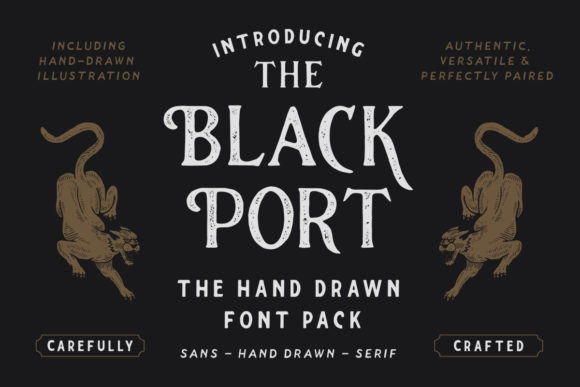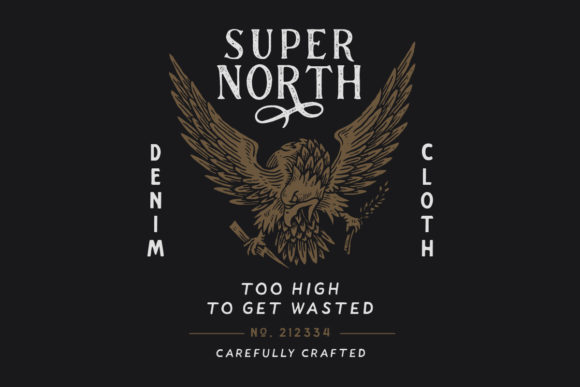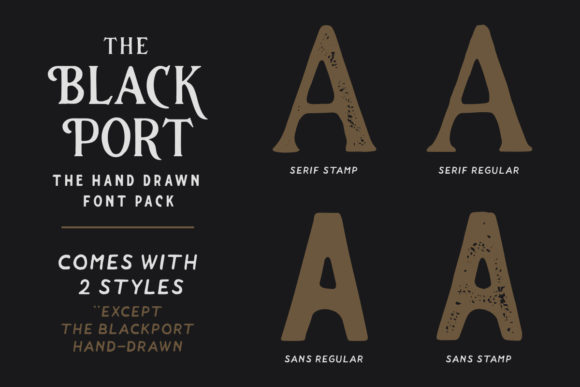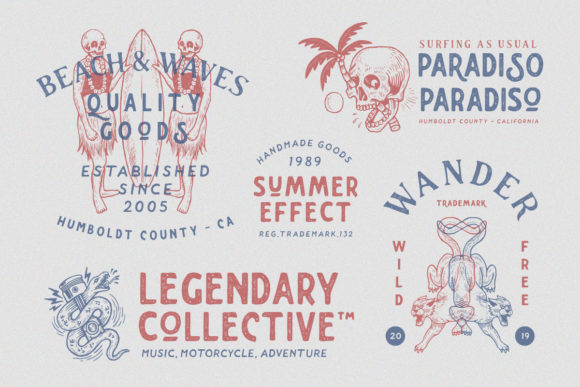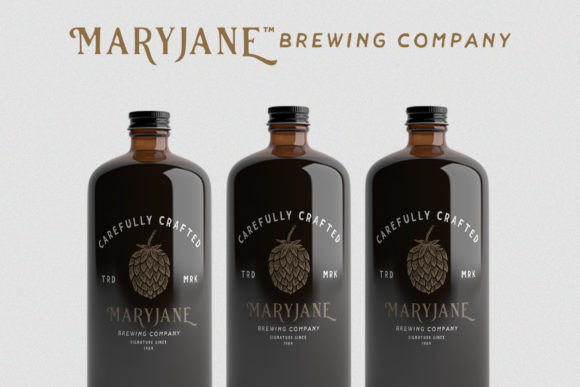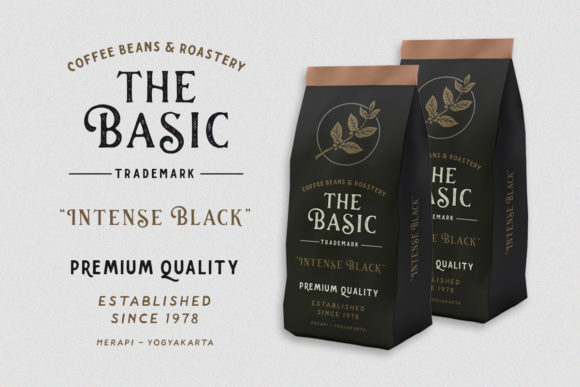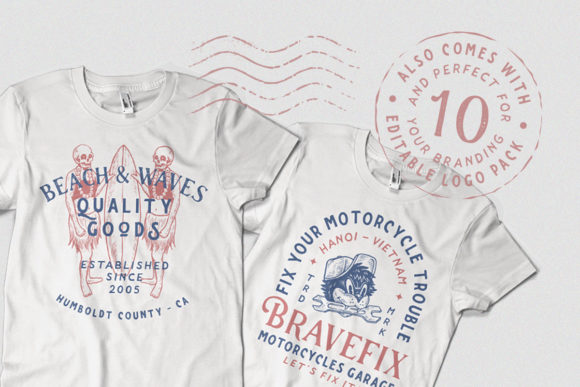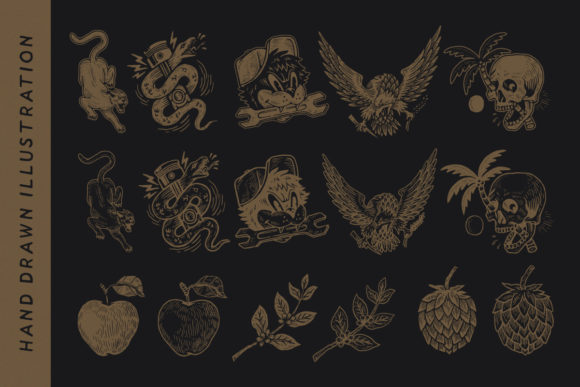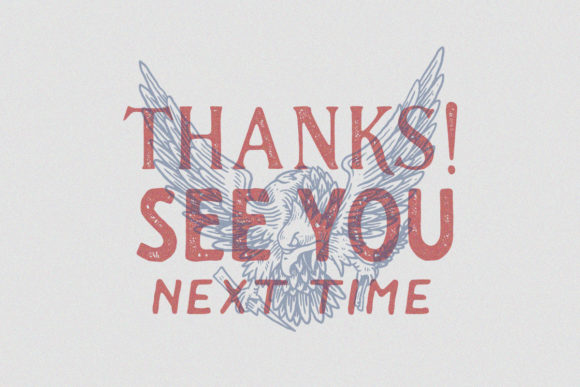
The Blackport Family Font
About The Blackport Family Font
The The Blackport is an amazing font duo. It has a vintage and classic feel and is perfect for adding a handmade touch to your designs.
It includes various illustrations and logos to add to your designs.